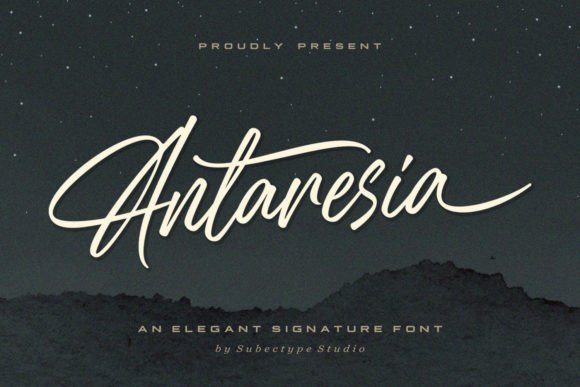
The Elegance of Antaresia Font: A Designer’s Delight
I’ll never forget the time I was working on a project for a luxury brand, and I was struggling to find the perfect font to convey their high-end image. The client wanted something elegant, sophisticated, and eye-catching. After hours of searching, I stumbled upon Antaresia Font, and it was love at first sight! 💫 In this article, I’ll share my experience with this beautiful font, its features, and how to make the most of it in your designs.
A Personal Review of Antaresia Font
- ✨ Elegant handwritten style that’s perfect for luxury brands, weddings, and high-end events
- 💫 Beautifully crafted with attention to detail, making it perfect for titles, headings, and logotypes
- 🎨 Versatile and can be used for a variety of design projects, from posters to invitations
While Antaresia Font is an excellent choice for many design projects, there are a few things to keep in mind:
- 🤔 Limited availability of certain characters, such as ligatures and diacritical marks
- ⚠️ May not be the best choice for body text or long paragraphs, as it’s designed for titles and headings
- Experiment with glyphs and stylistic alternates to add depth and visual interest to your design
The Story Behind Antaresia Font
Antaresia Font was designed with the intention of creating a elegant, handwritten font that would evoke a sense of luxury and sophistication. The designer drew inspiration from classic calligraphy and modern typography to create a unique and beautiful font.
| Author | Subectype |
Q: What is Antaresia Font?
Antaresia Font is an elegant handwritten font designed for luxury brands, weddings, and high-end events.
Q: Is Antaresia Font suitable for body text?
No, Antaresia Font is designed for titles, headings, and logotypes, and may not be the best choice for body text or long paragraphs.